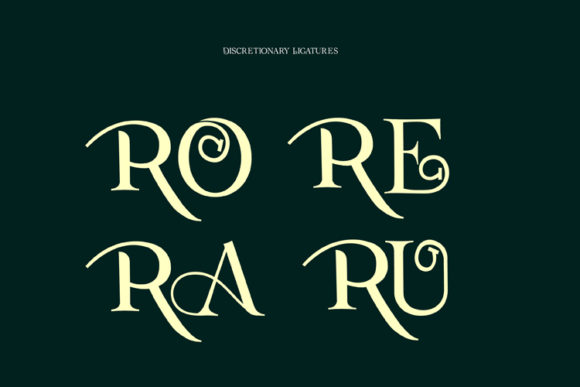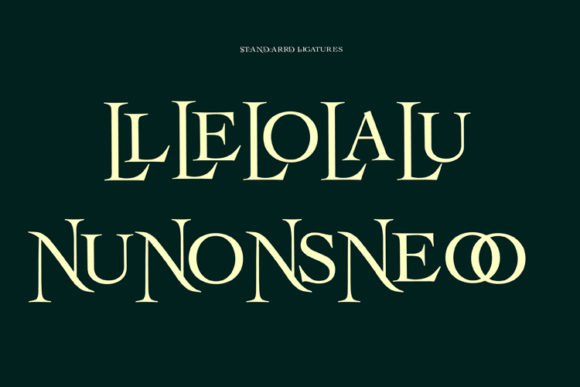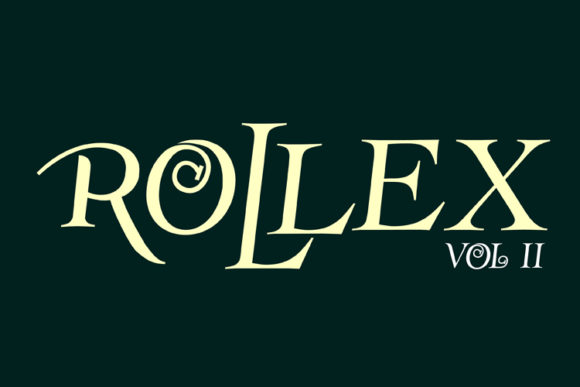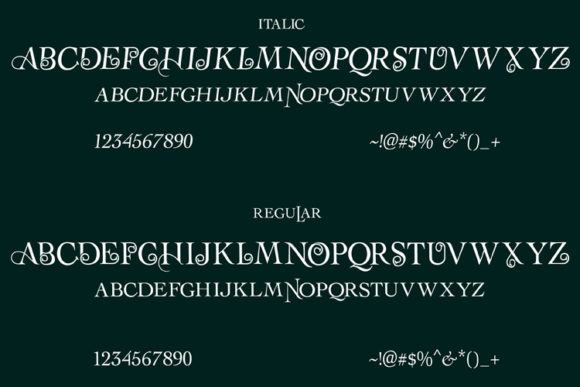
Introduction to Rollex II Font
Rollex II is an elegant display font with curly characters.
Get inspired by its contemporary coolness .
Key Features of Rollex II Font